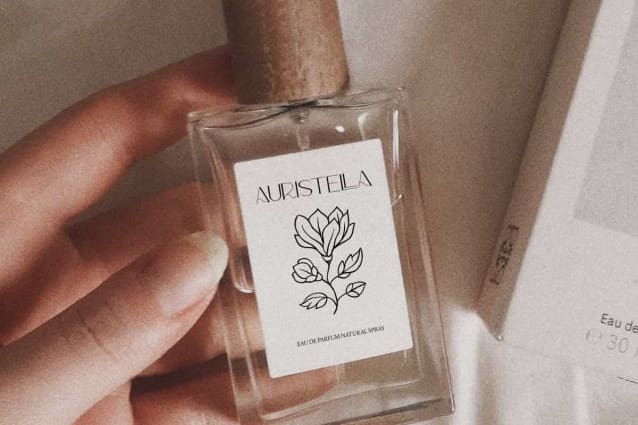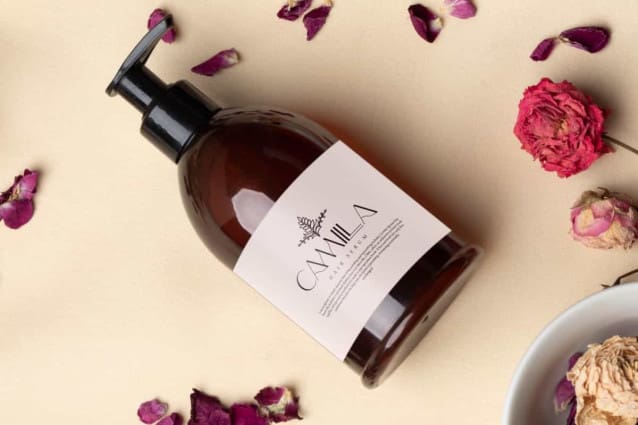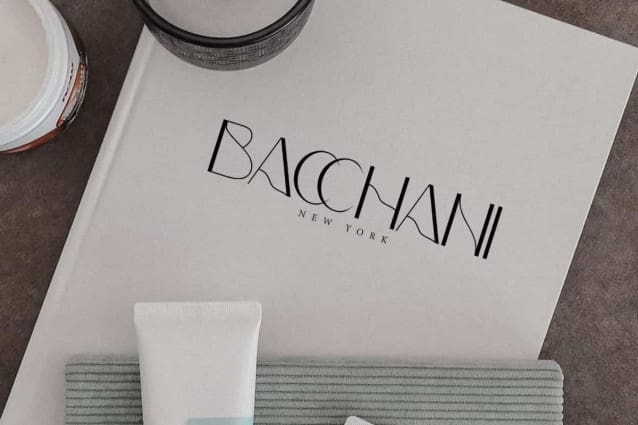
Bacchani Font
Bacchani Font is a sleek sans serif display font. The wavy lines of this font give an elegant impression with a fresh feeling. It would be perfect for any projects, such as advertising, blog, brand image, gift box, invitation, label, layout design, quotes, signage, stationery, template designing purposes, website, and more.
Bacchani Font includes full set of Uppercase and Lowercase Basic Characters, Numerals, Punctuation, and Symbol. This font also has Ligature characters that will be perfect for accessories and jewelry, beauty product, event or wedding organizer, fashion, florist, furniture, real estate, spa salon, etc.